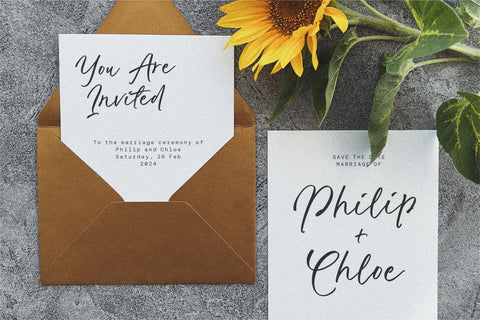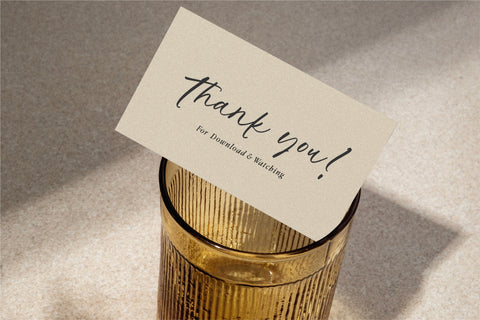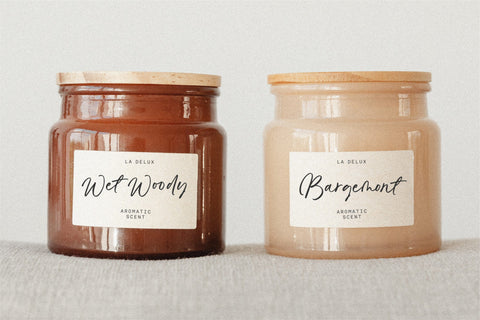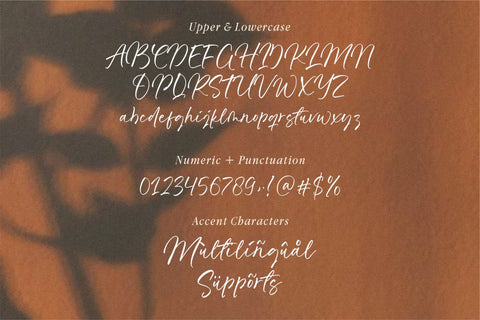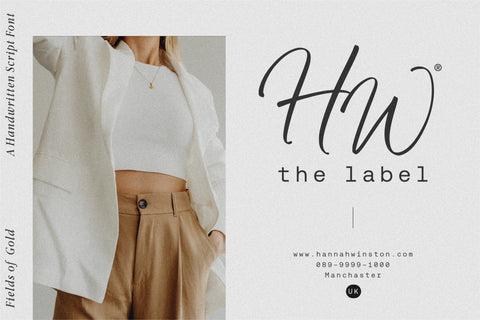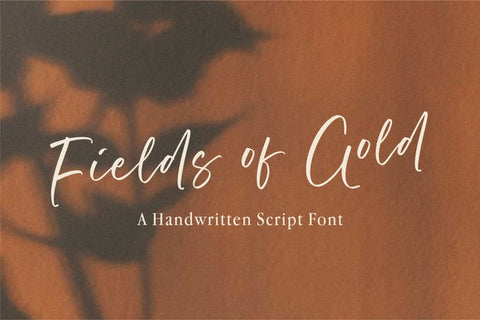
Fields of Gold Font
Fields of Gold is a Handwritten Script Font that's perfect for adding a personal touch to your design projects! With its natural, organic feel and unique character.
Crafted with care and attention to detail, this font is incredibly versatile and can be used for a range of design projects, including logos, branding, invitations, and more. Its modern, handwritten style gives it a unique character that's sure to make an impact.